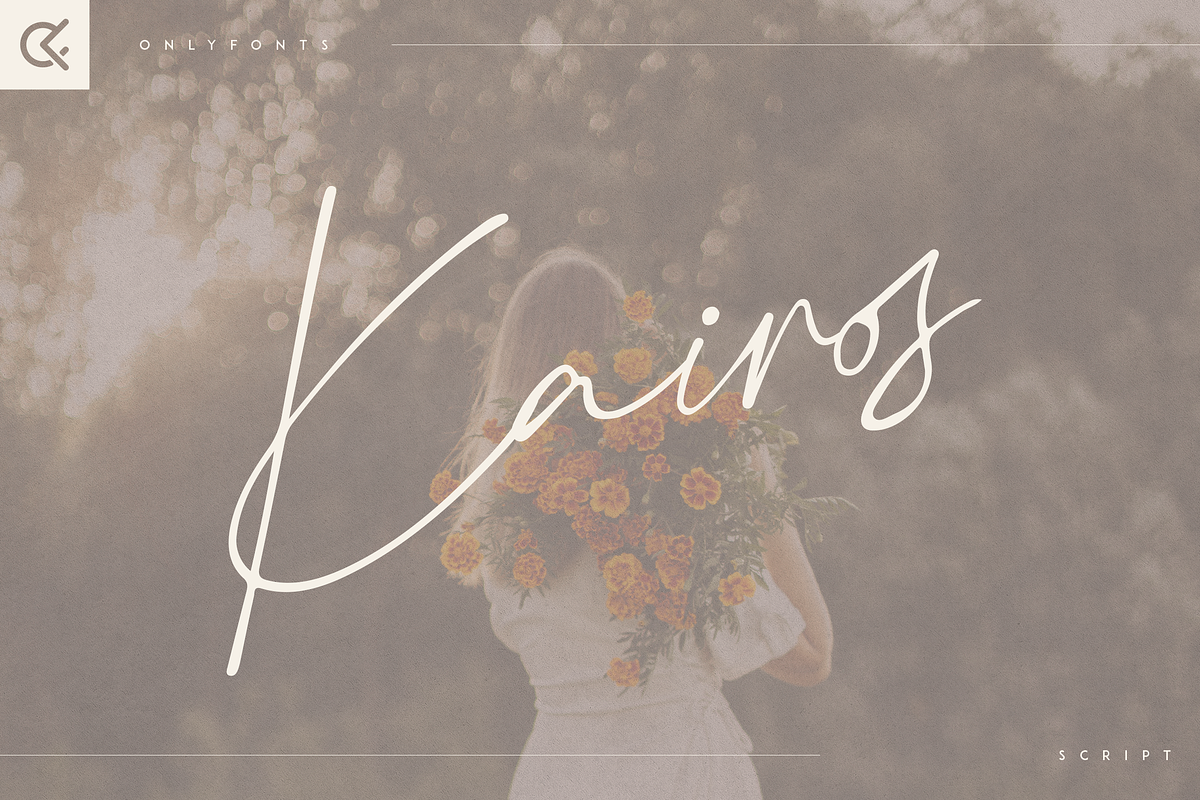
Kairos - modern script Free Download
Kairos - Modern Script Font Free Download
Please note, you must purchase this font for commercial use. However, you can easily download Kairos - Modern Script Font Free Download for personal use and testing purposes. Kairos - Modern Script Font is a sleek and stylish handwritten typeface with a contemporary feel. Perfect for creating elegant logos, invitations, branding, and social media graphics, this font features smooth, flowing strokes that convey a sophisticated, yet modern charm. Whether you're working on a luxury brand identity, a wedding invitation, or personalized stationery, Kairos - Modern Script Font Free Download brings a graceful and refined touch to any design. Download Kairos - Modern Script Font Free Download today and explore its potential before opting for a commercial license.